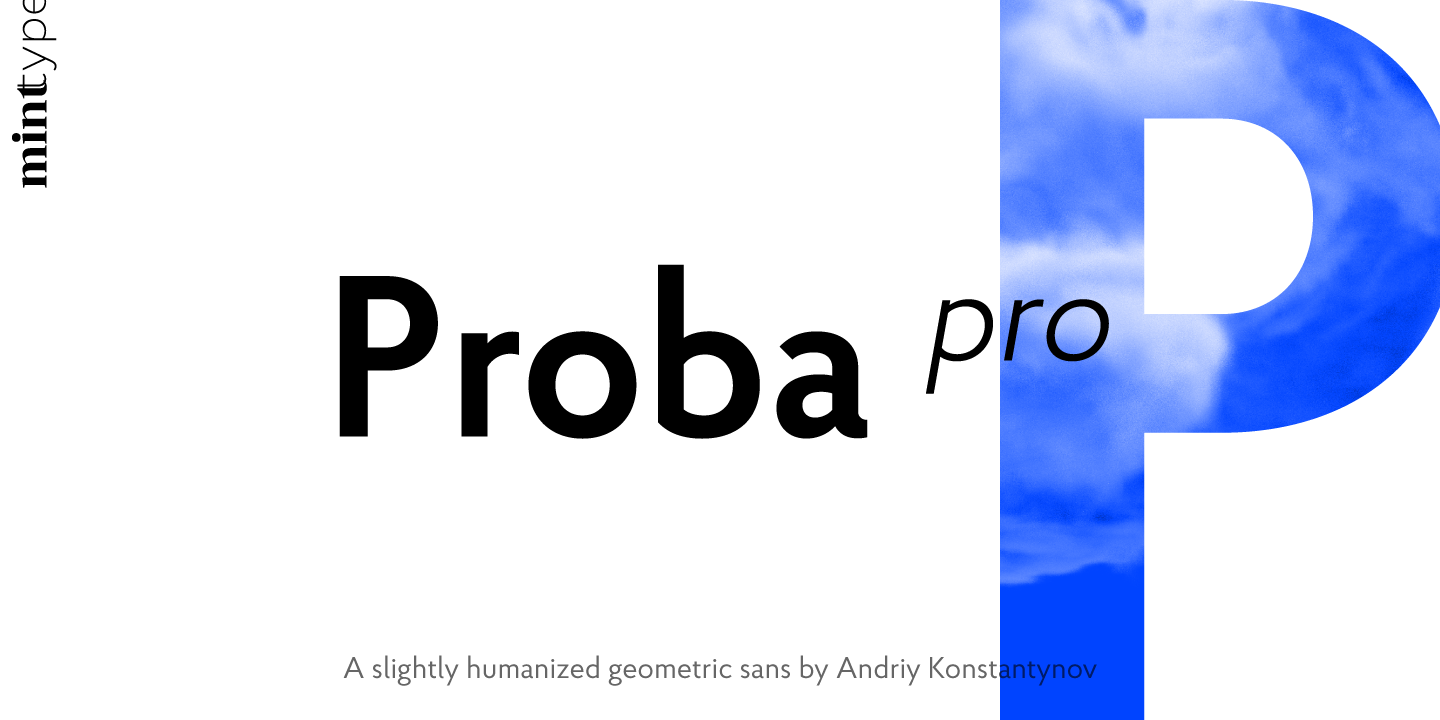
Proba Pro Font excels across diverse design applications including corporate identity systems, financial reports, technical documentation, software interfaces, professional presentations, scientific publications, architectural drawings, and industrial design communications. Its versatile nature makes it particularly effective for projects requiring authoritative communication while maintaining approachable readability, ensuring your content performs exceptionally across both high-resolution digital displays and precision print applications.
What makes Proba Pro Font truly exciting is its masterful balance of technical excellence and visual refinement that creates compelling professional communications across multiple industries. The font features meticulously engineered letterforms that demonstrate exceptional clarity at all sizes, from large display applications to detailed technical specifications. Its distinctive character construction incorporates subtle geometric principles that enhance readability while providing distinctive personality that differentiates professional communications. The font's advanced OpenType features and optimized hinting ensure superior performance across various operating systems and output devices, making it reliable for mission-critical applications.
Proba Pro Font presents a comprehensive type family engineered to support complex professional requirements. The family typically includes thin, light, regular, medium, bold, and black weights, complemented by matching italic styles that provide complete typographic flexibility for sophisticated document hierarchies. Advanced versions often feature extensive character sets with multiple language support, technical symbols, mathematical notation, and specialized glyphs essential for international professional communications and technical documentation.
For optimal results, Proba Pro Font pairs excellently with complementary fonts that support its professional character while providing textural contrast in complex document layouts. Its authoritative presence dominates headline applications while maintaining exceptional legibility in data-intensive contexts. The font's technical sophistication and professional reliability make it an invaluable resource for organizations requiring consistent, high-quality typography across all communications.